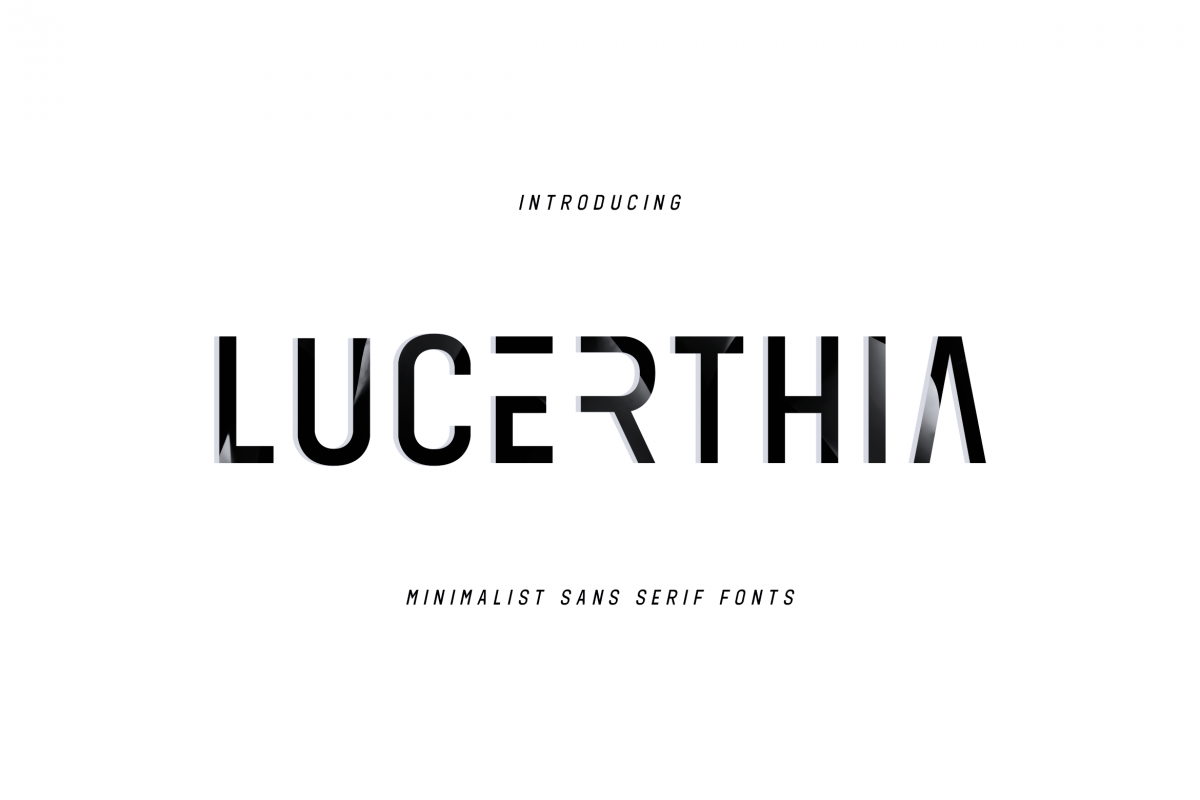
LUCRETHIA - Minimal Sans Serif Font
LUCRETHIA Inspired by the minimalism, A balance styles through the controlled letterforms and modern touches. any family of this fonts will be added in upcoming updates.
By Namara Creative Studio